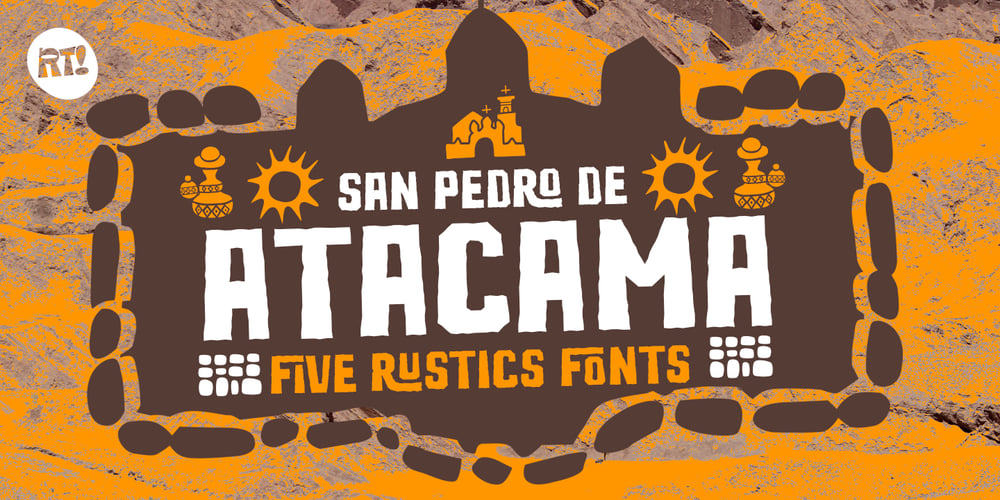
San Pedro de Atacama Font Family was designed by Rodrigo Araya Salas and published by RodrigoTypo. San Pedro de Atacama contains 5 styles and family package options. San Pedro de Atacama is inspired by the north of Chile, which was based on rustic elements, 4 elements were added, which contains linear, filled and textured, also accompanied by “Ruina”for the titles.